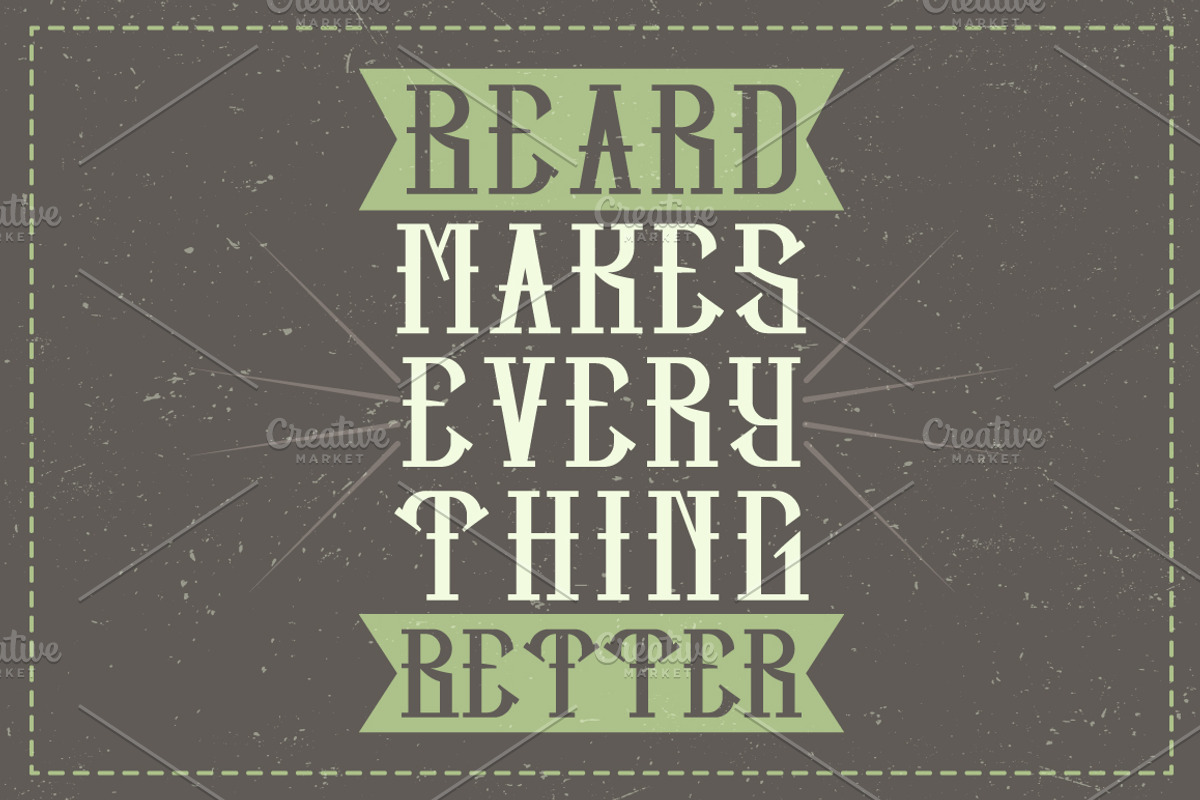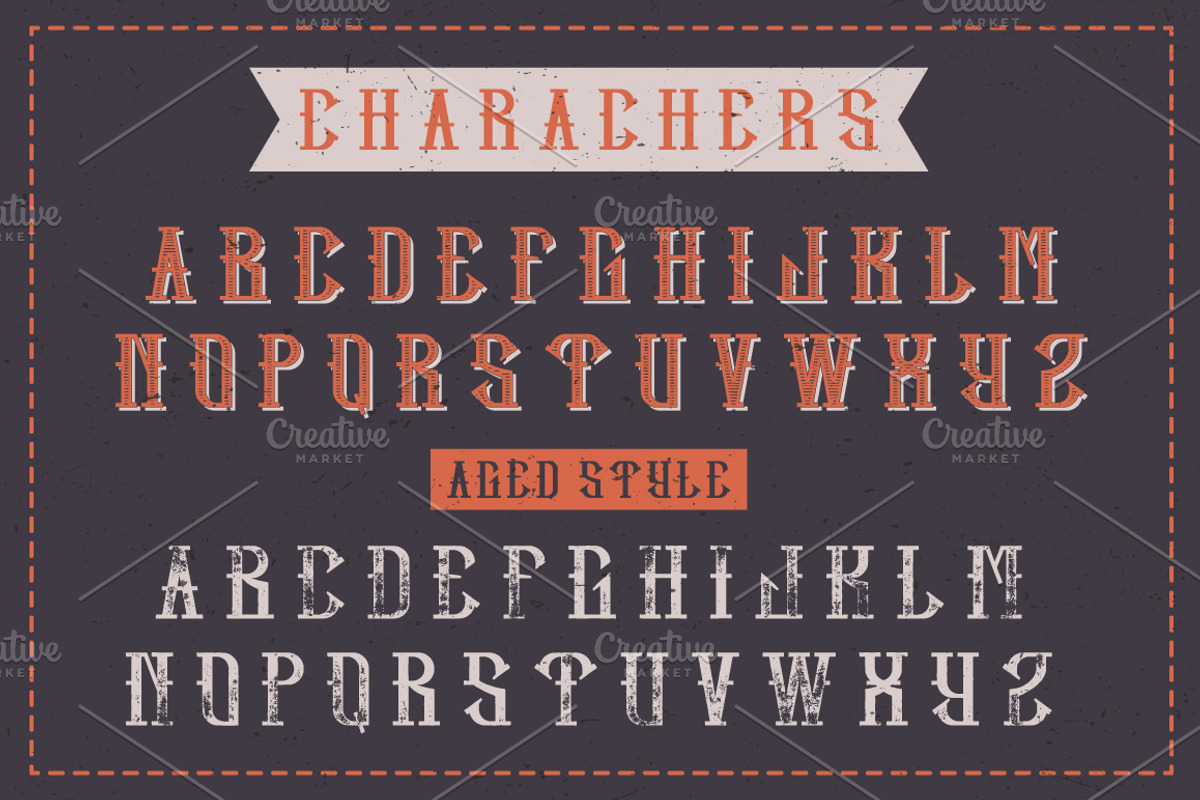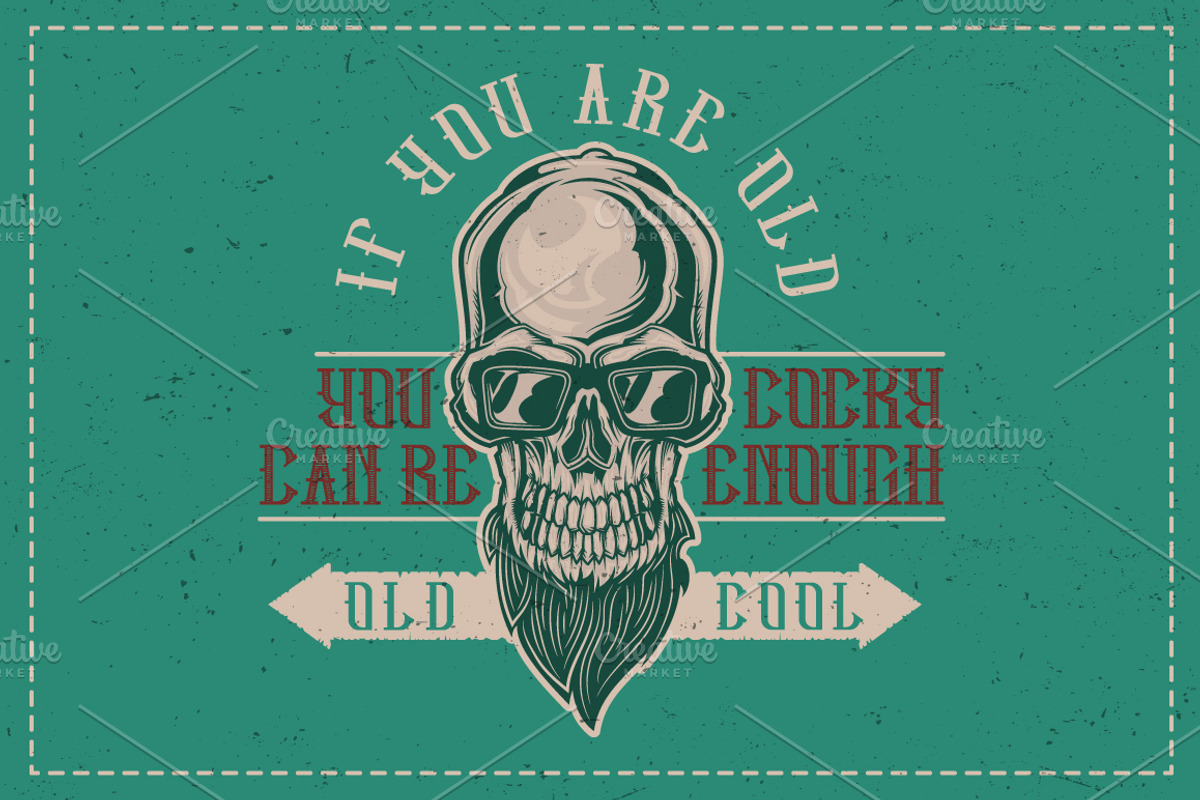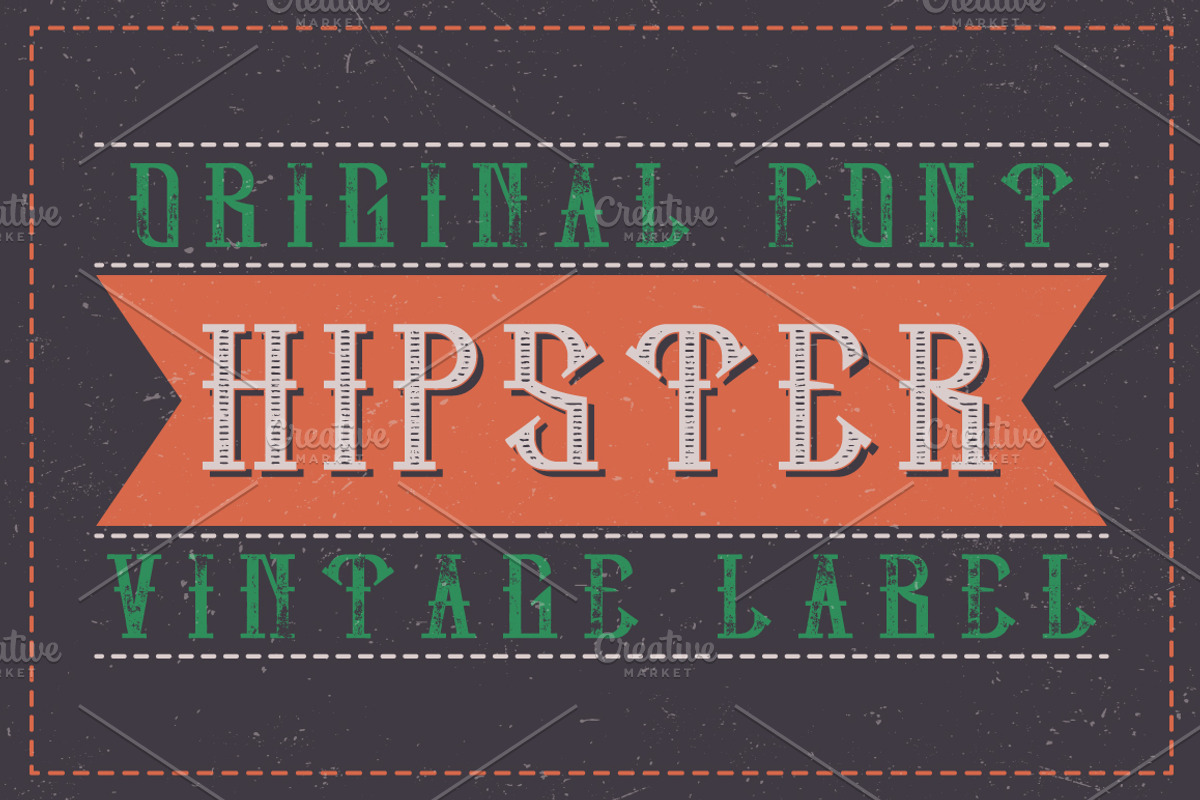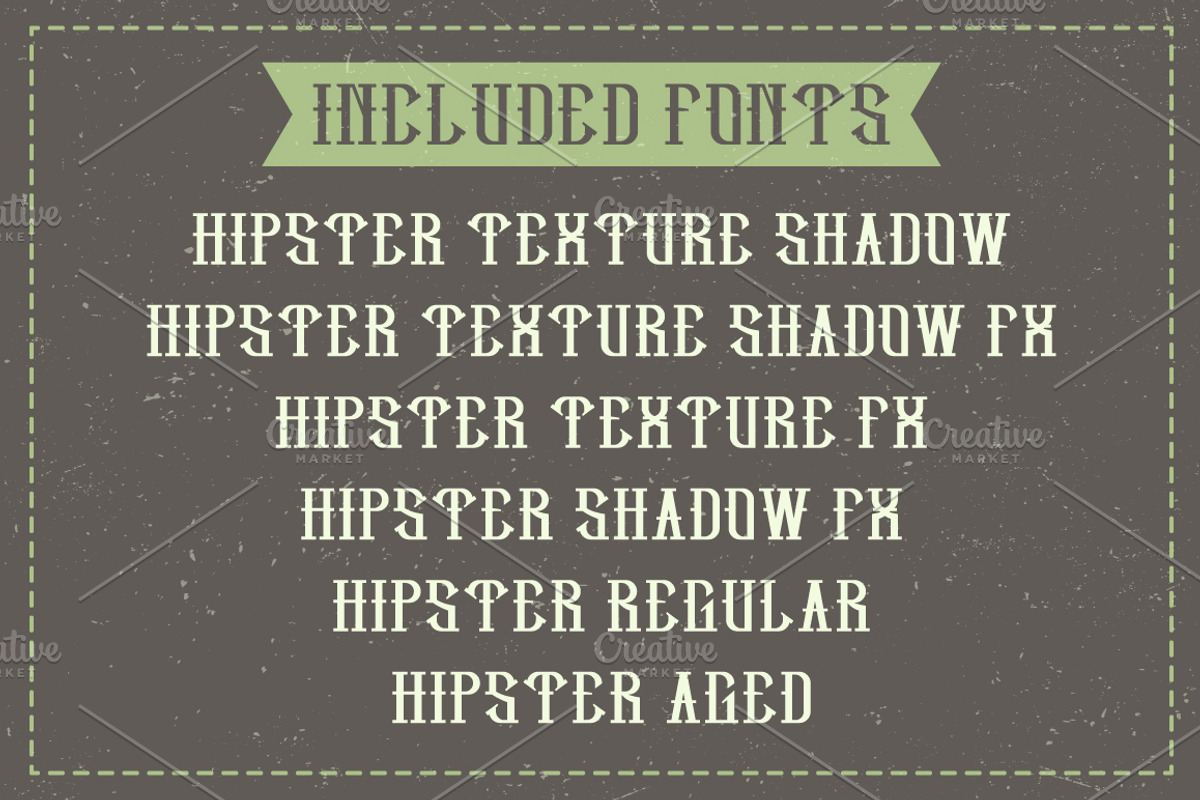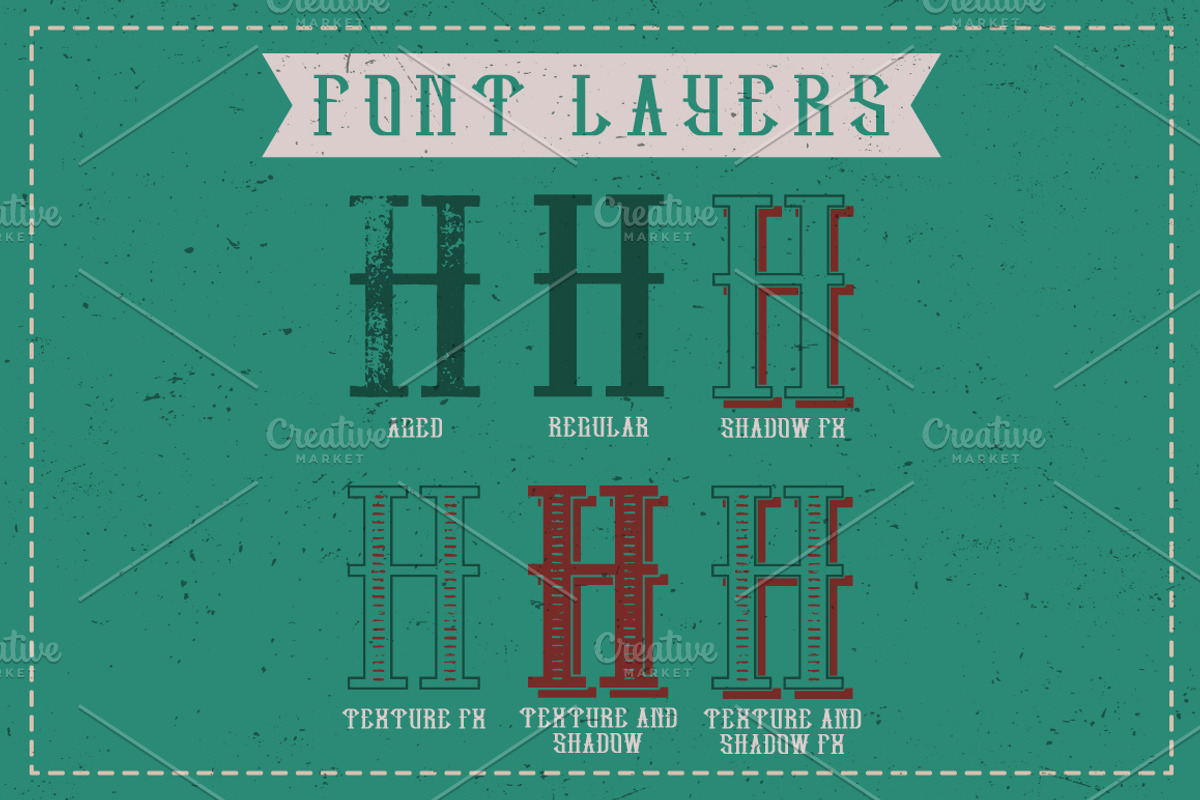
Hipster label typeface
Introducing a vintage label typeface named "Hipster". It's made in strong and vintage label style. Typeface looks great on any label designs and t-shirts.
- 5 fonts in complect with special effects + aged version
- You can mix color of base font, texture and shadow effect (look at 5th screenshot)